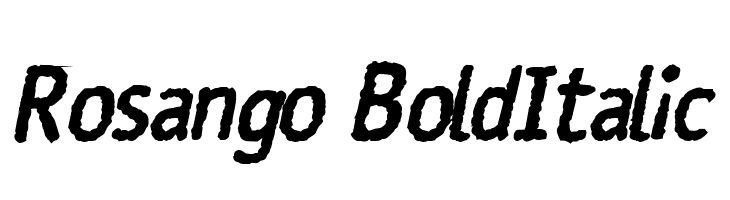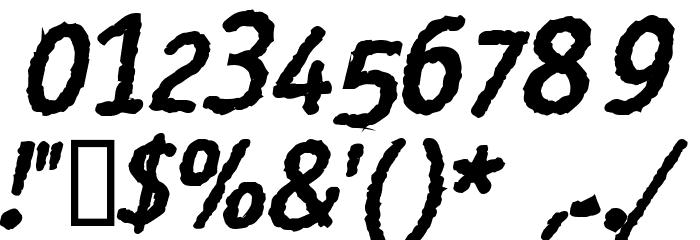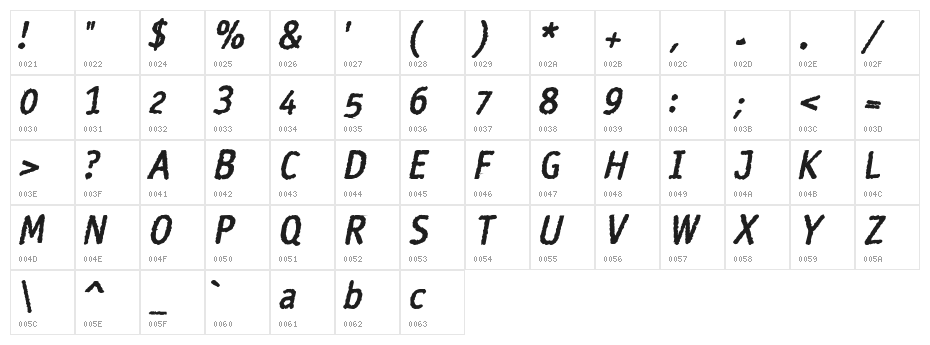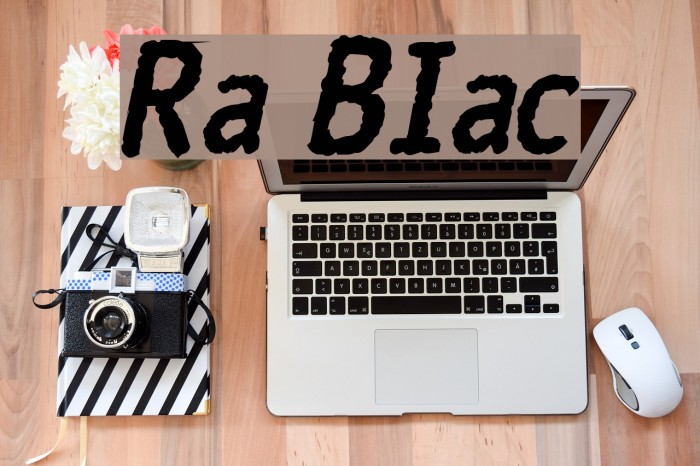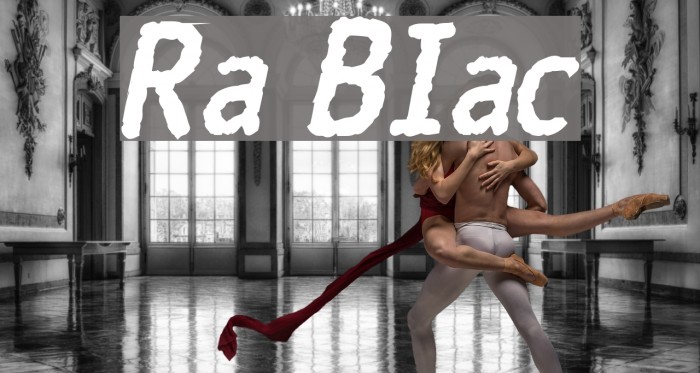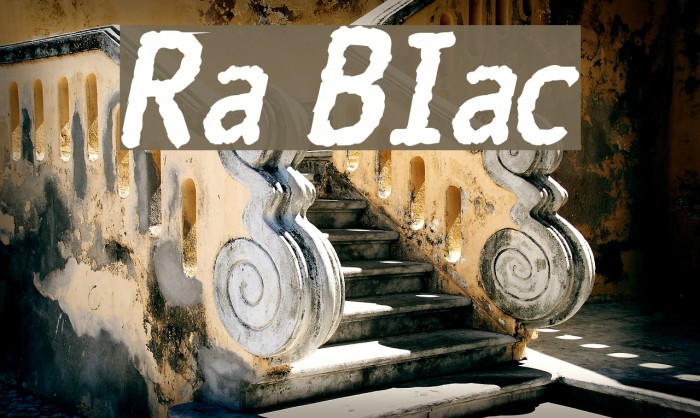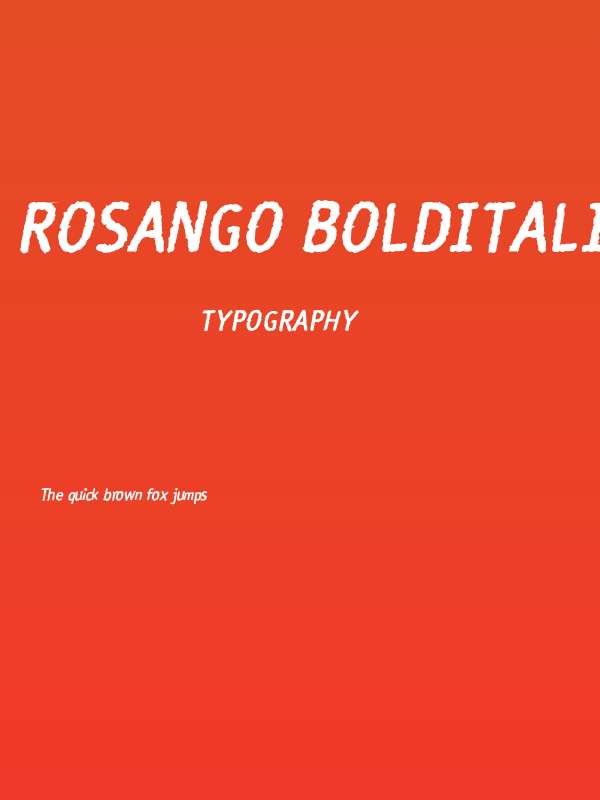
Rosango BoldItalic Font
Rosango BoldItalic Description
This font exhibits a bold and italicized style with a distinctive hand-drawn appearance. The characters are slightly slanted, adding a dynamic and energetic feel. The strokes are thick and uneven, giving it a textured, almost brush-like quality. This font is highly legible and commands attention, making it suitable for impactful headlines or creative projects. The uppercase and lowercase letters maintain a consistent style, while the numerals and special characters complement the overall aesthetic. Its unique design makes it stand out, offering a blend of boldness and artistic flair.